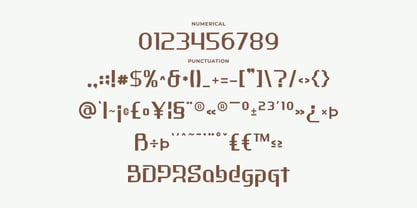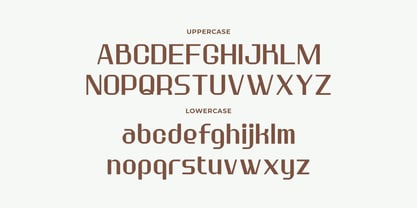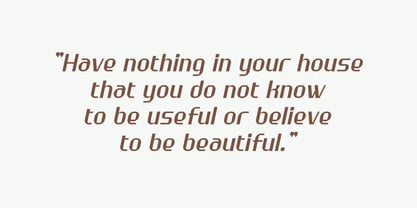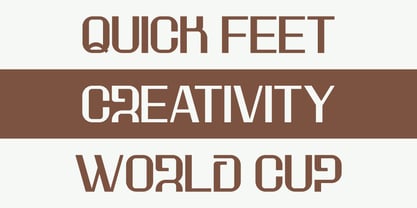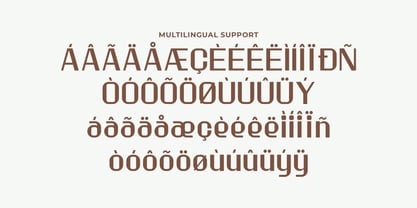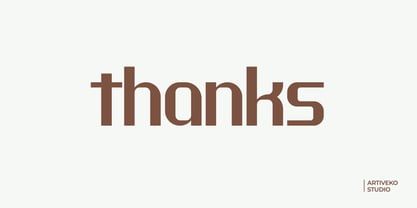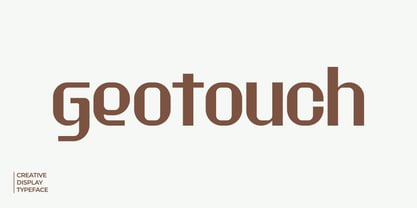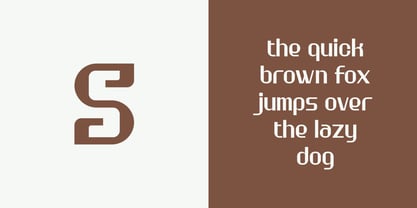
Geotouch
por Artiveko
La familia tipográfica Geotouch fue diseñada por Iwan Alwan y publicada por Artiveko. Geotouch contiene 2 estilos y opciones de paquete familiar. Más información sobre esta familia
Geotouch is a creative display typeface crafted to infuse originality and bold expression into contemporary typography. By merging clean geometry with unique display features, Geotouch offers a fresh visual style that captures attention while ensuring excellent readability. Ideal for logos, branding, posters, packaging, editorial layouts, merchandise, social media graphics, and advertising campaigns, Geotouch provides the versatility needed to create memorable visual identities across both print and digital platforms. Its artistic personality makes it a perfect choice for agencies, startups, lifestyle brands, and designers seeking typography with a modern edge. Whether you're developing a new brand, launching a creative campaign, or designing striking headlines, Geotouch delivers the confidence and adaptability to make every project shine. Geotouch is not just a typeface—it's a creative statement that transforms concepts into unforgettable visual identities.
Diseñadores: Iwan Alwan
Fundición: Artiveko